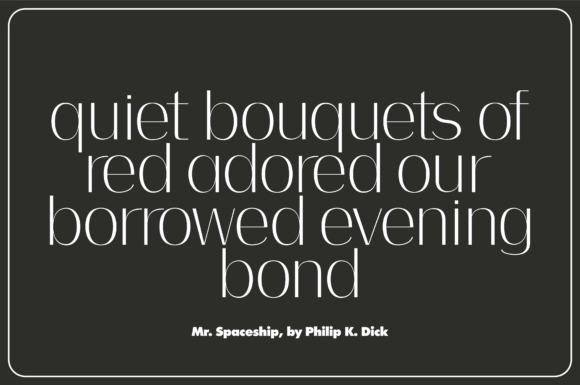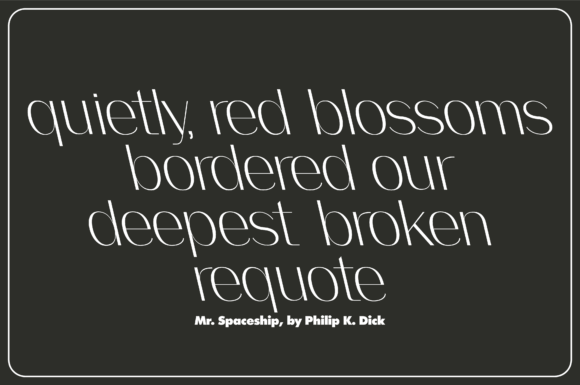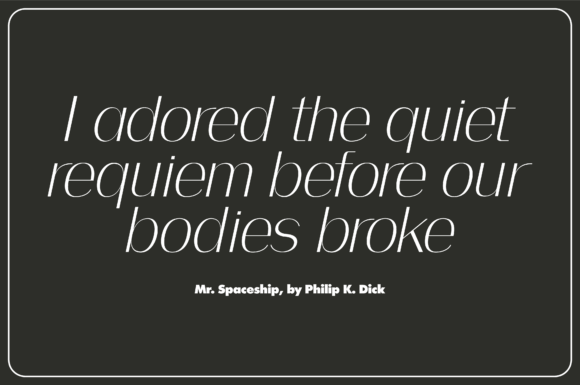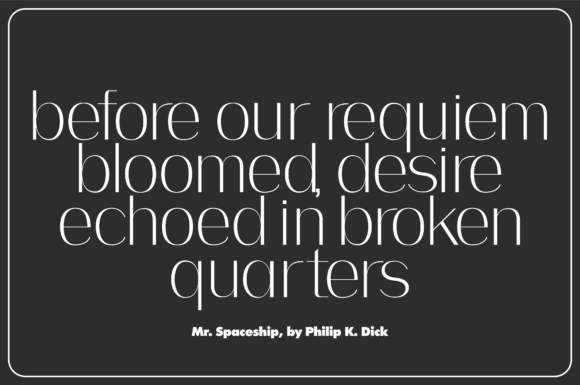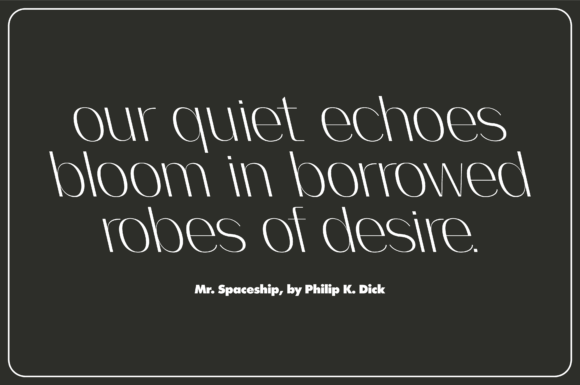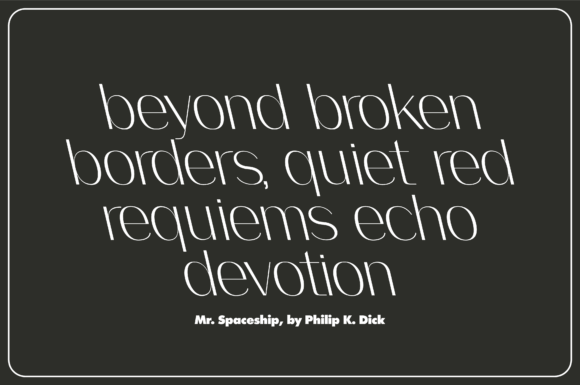
Aurilia Font: Elevate Your Designs with Elegance and Readability
Are you tired of using the same old fonts in your designs? Look no further than Aurilia, a stunning sans-serif font family that is sure to take your creations to the next level. With its exceptional charm and superior readability, Aurilia is the perfect choice for designers and crafters looking to add a touch of sophistication to their work.
What is Aurilia Font?
Aurilia is a versatile font family that consists of three distinct styles: Regular, Italic, and Retalic (also known as Reversed Italic). Each style has been carefully crafted to provide a unique and captivating visual experience. The Regular style is perfect for body text and headings, while the Italic style adds a touch of elegance and flair. The Retalic style, on the other hand, offers a bold and adventurous look that is sure to grab attention.
Key Features of Aurilia Font
- Immaculate and sturdy strokes: Aurilia’s strokes are carefully designed to provide a clean and robust look that is easy on the eyes.
- Expansive design: The font’s generous letter-spacing and wide design create a sense of openness and freedom, making it perfect for titles, logos, and invitations.
- Perfect balance of elegance and approachability: Aurilia strikes the perfect balance between sophistication and friendliness, making it suitable for a wide range of design projects.
Why Choose Aurilia Font?
So, why should you choose Aurilia for your design projects? Here are just a few reasons:
- Exceptional readability: Aurilia’s clear and sturdy strokes make it easy to read, even at small font sizes.
- Versatility: With three distinct styles to choose from, Aurilia can be used for a wide range of design projects, from elegant headings to bold statements.
- Unique and captivating visual experience: Aurilia’s expansive design and generous letter-spacing create a visually appealing effect that is sure to grab attention.
Use Cases for Aurilia Font
Aurilia is a versatile font that can be used for a variety of design projects, including:
- Prominent titles: Aurilia’s bold and elegant styles make it perfect for headings and titles that need to make a statement.
- Logos: The font’s expansive design and sturdy strokes make it an excellent choice for logos that need to be eye-catching and memorable.
- Invitations: Aurilia’s elegant and sophisticated styles make it perfect for invitations, such as wedding invitations, formal events, and more.
In conclusion, Aurilia is a standout font family that offers a unique combination of elegance, readability, and versatility. With its three distinct styles, expansive design, and sturdy strokes, Aurilia is the perfect choice for designers and crafters looking to elevate their designs. Whether you’re working on a prominent title, logo, or invitation, Aurilia is sure to bring a touch of sophistication and charm to your creations.